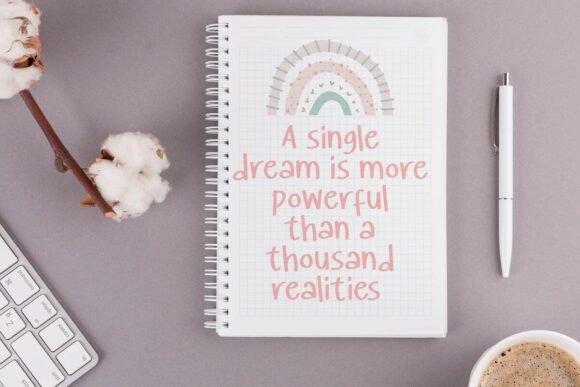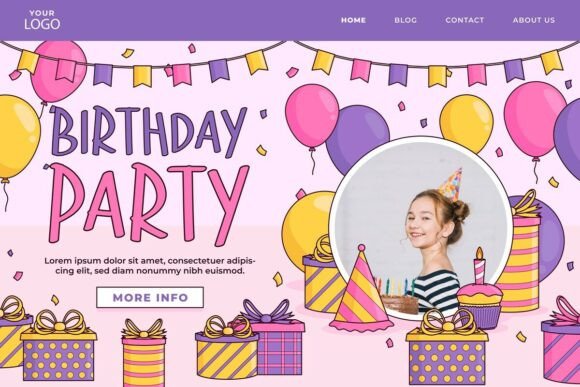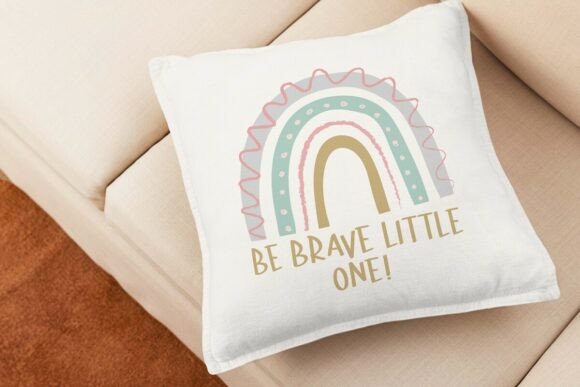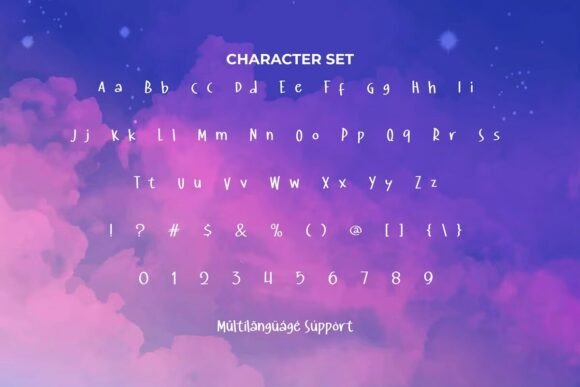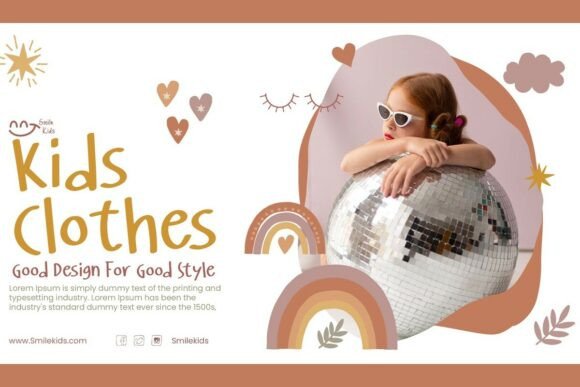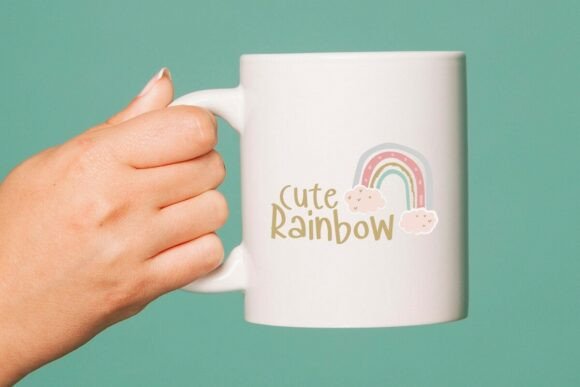
Introducing Back Dream Font: The Ultimate Fantasy Font for Creative Designs
Are you a designer or crafter looking for a unique and charming font to add a touch of originality to your designs? Look no further than Back Dream Font, a beautiful fantasy font with fun characteristics that is sure to make your work stand out with style. In this article, we’ll take a closer look at the features and benefits of Back Dream Font, and explore how it can be used to elevate your designs.
What is Back Dream Font?
Back Dream Font is a stunning fantasy font that boasts a unique and fun personality. With its own distinct style, this typeface is perfect for adding charm and originality to your designs. Whether you’re creating logos, invitations, brochures, menus, posters, packaging, labels, or websites, Back Dream Font is the perfect choice.
Key Features of Back Dream Font
So, what makes Back Dream Font so special? Here are just a few of its key features:
- Full set of Uppercase and Lowercase letters: Back Dream Font comes with a complete set of uppercase and lowercase letters, ensuring that you have everything you need to create stunning text-based designs.
- Numbers, Punctuation, and Symbols: In addition to letters, Back Dream Font also includes a range of numbers, punctuation marks, and symbols, giving you even more creative possibilities.
- Unique style: Back Dream Font has its own distinct style that is sure to make your designs stand out from the crowd.
- No boring designs: With Back Dream Font, you’ll never have to worry about your designs looking boring or generic. This font is guaranteed to add a touch of excitement and originality to your work.
How to Use Back Dream Font
Back Dream Font is incredibly versatile and can be used for a wide range of design projects. Here are just a few ideas to get you started:
- Logos: Create a memorable and eye-catching logo for your business or brand with Back Dream Font.
- Invitations: Add a touch of whimsy and charm to your invitations with this beautiful fantasy font.
- Brochures and menus: Use Back Dream Font to create stunning brochures and menus that will grab attention and leave a lasting impression.
- Posters and packaging: Whether you’re creating posters or packaging, Back Dream Font is the perfect choice for adding a touch of style and originality.
- Websites: Use Back Dream Font to create a unique and memorable website that will stand out from the crowd.
Benefits of Using Back Dream Font
So, why should you choose Back Dream Font for your design projects? Here are just a few benefits of using this amazing font:
- Unique and original designs: With Back Dream Font, you can create designs that are truly one-of-a-kind.
- Easily readable: Despite its fun and whimsical style, Back Dream Font is still incredibly easy to read, making it perfect for body text and headings.
- Time-saving: With Back Dream Font, you can create stunning designs in no time, saving you time and effort.
In conclusion, Back Dream Font is a beautiful fantasy font that is perfect for designers and crafters looking to add a touch of charm and originality to their designs. With its unique characteristics, fun personality, and full set of uppercase and lowercase letters, numbers, punctuation, and symbols, this font is sure to make your work stand out with style. Whether you’re creating logos, invitations, brochures, menus, posters, packaging, labels, or websites, Back Dream Font is the perfect choice. So why wait? Download Back Dream Font today and start creating stunning designs that will leave a lasting impression!